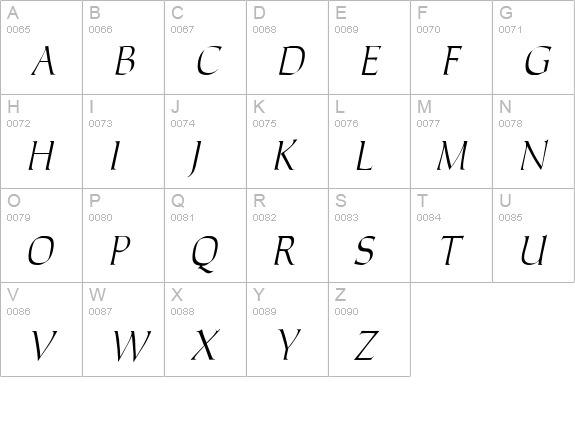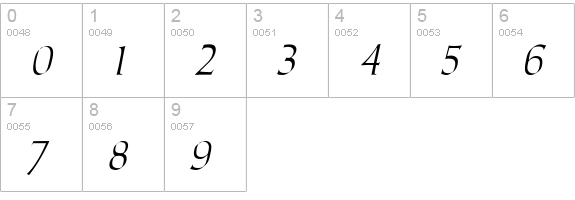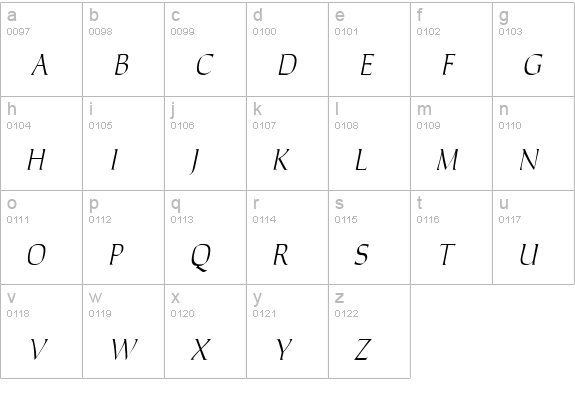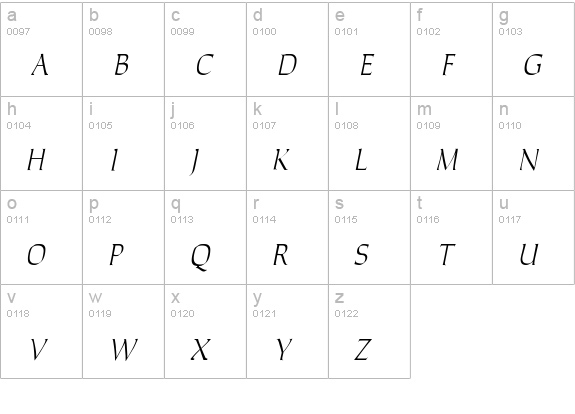
Carla Thin Italic is a delicate, low-contrast, italic variant in the Carla typeface family \xE2\x80\x94 well suited to fashion editorial, minimal branding, and high-contrast display.
Introducing Carla Thin Italic font - a sleek and elegant typeface that exudes sophistication and modernity. Its delicate and slanted design adds a touch of finesse to any project, making it perfect for branding, editorial design, and more. The slender letterforms of Carla Thin Italic effortlessly convey a sense of style and grace. This exquisite font is available for free download at FontsMarket.com, allowing you to elevate your designs without breaking the bank. Whether you're working on a professional project or simply looking to add a touch of elegance to your personal creations, Carla Thin Italic font is sure to impress with its refined aesthetic and versatility. Download now and enhance your typography game with this stunning typeface.